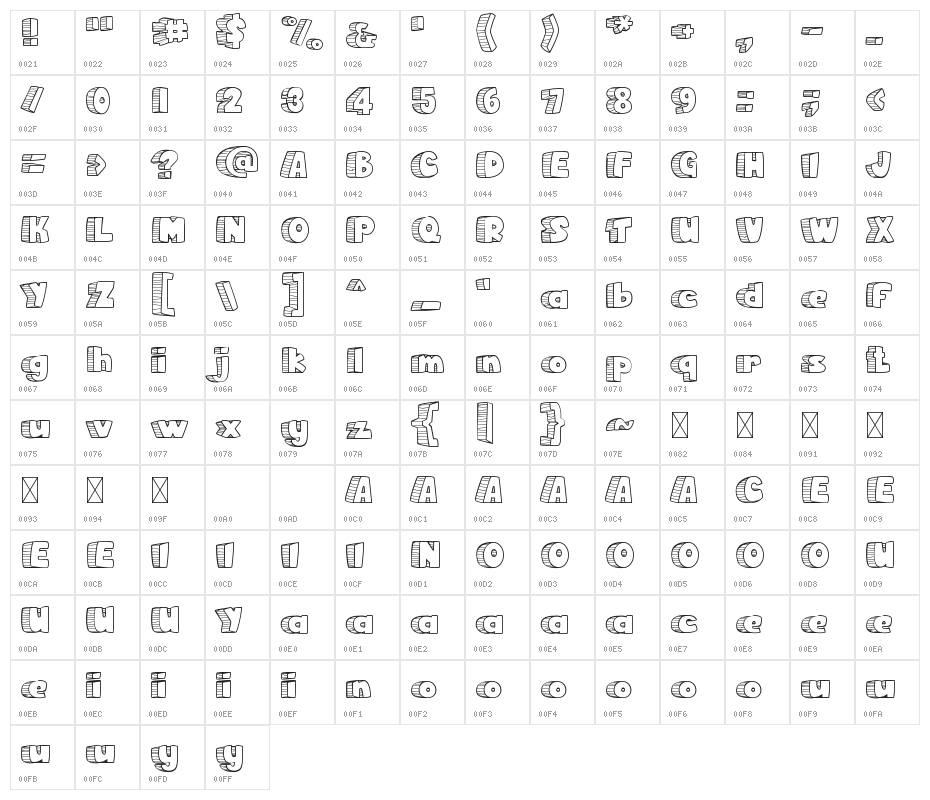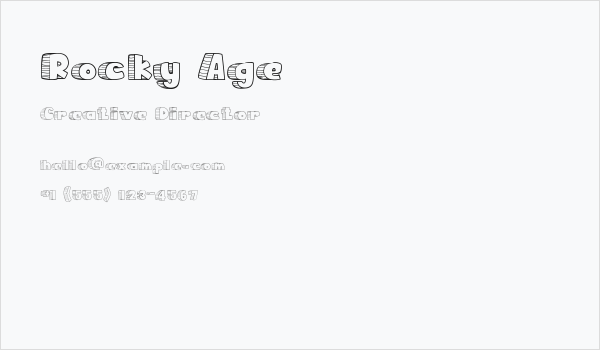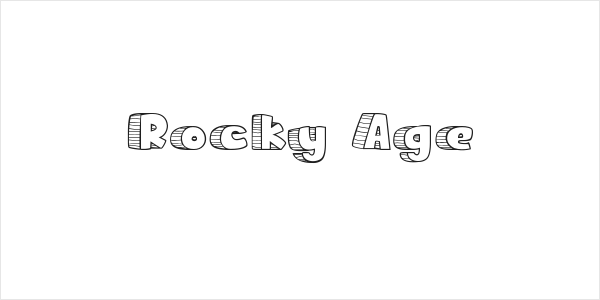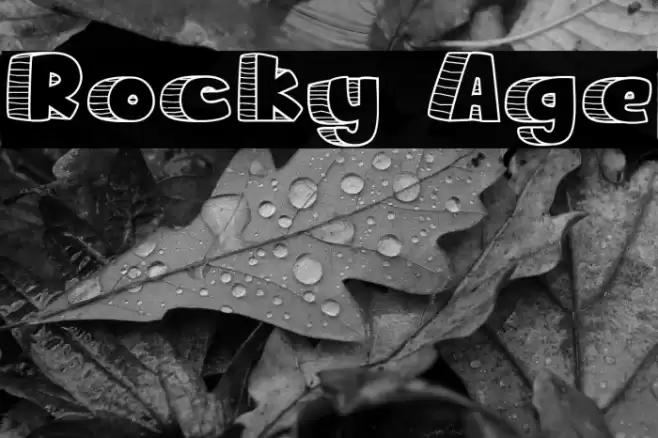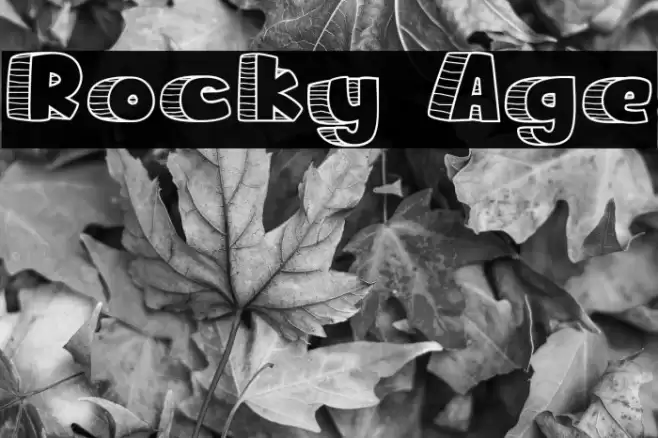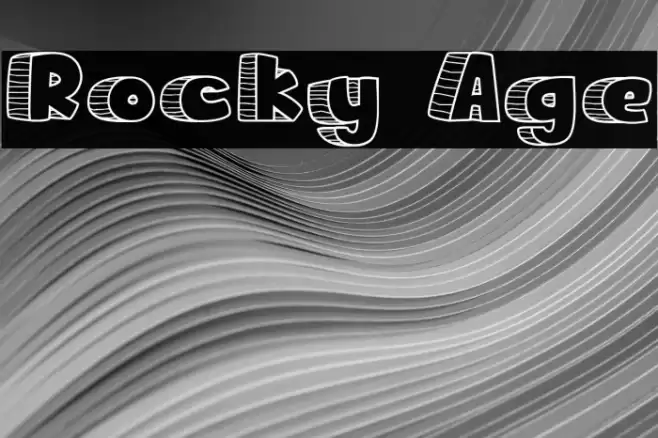
Rocky Age Font
Rocky Age Description
This playful and bold font features a hand-drawn, textured style that mimics the appearance of rocks or bricks. Each character is outlined with a thick, uneven line, giving it a rugged and dynamic look. The interior of the letters is filled with horizontal lines, adding depth and a sense of movement. The font maintains a consistent weight throughout, with rounded edges that soften its overall appearance. It is highly decorative, making it ideal for projects that require a fun and engaging visual element.
| Proposed Projects | Perfect for children's book covers, playful branding, event posters, and any project needing a fun, engaging typeface. |